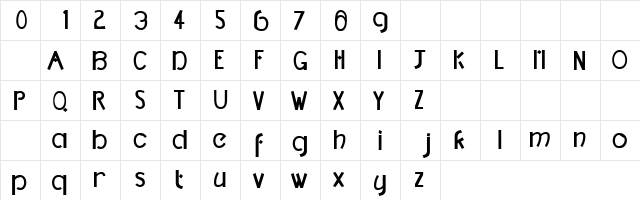
TM DCC Normal
Design Context for TM DCC Typeface
TM DCC takes a measured approach to typography — its balanced proportions and neutral character make it a reliable workhorse for both digital and print work.